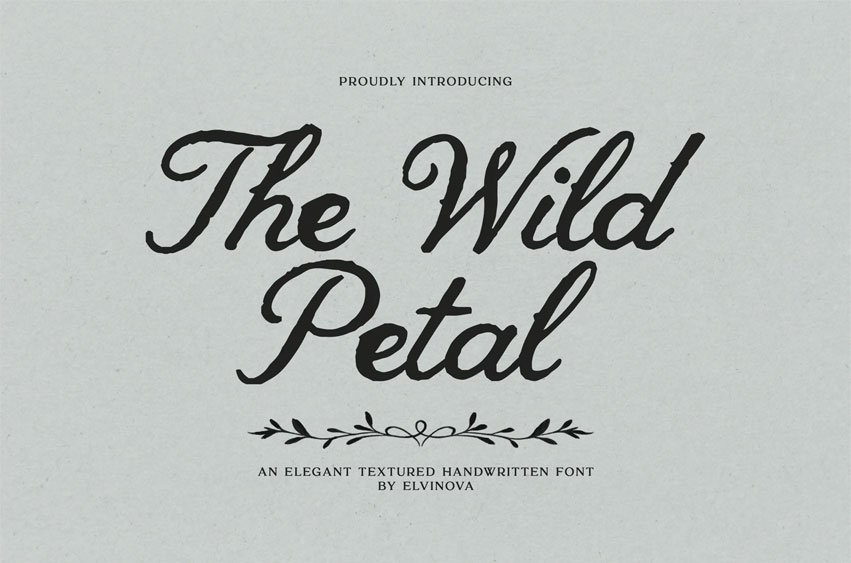
The Wild Petal Font
The Wild Petal Font is a romantic textured handwritten font with elegant flowing curves and a beautifully imperfect hand-drawn feel, ideal for branding, invitations, packaging, and feminine creative work.